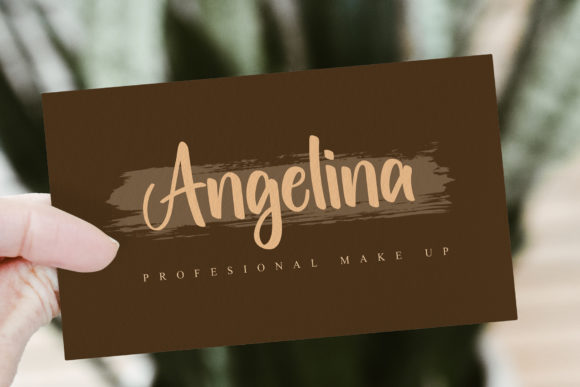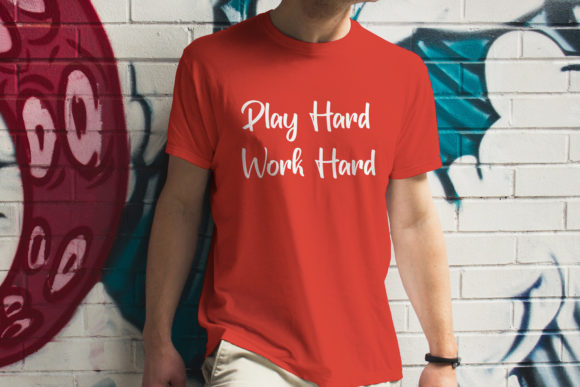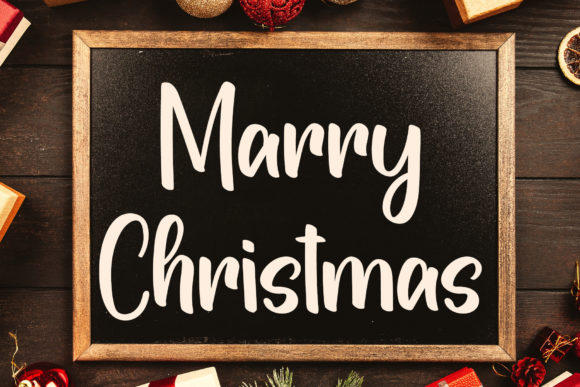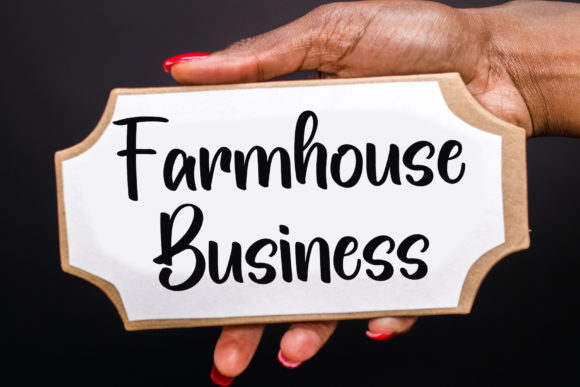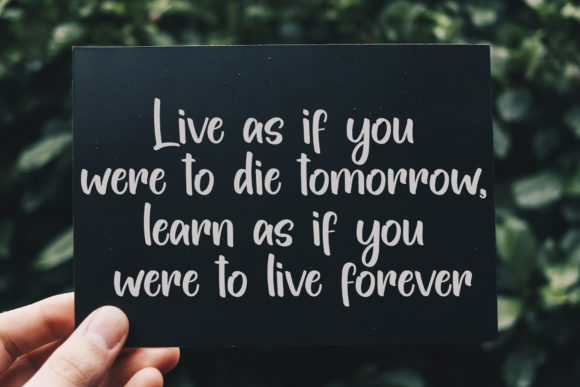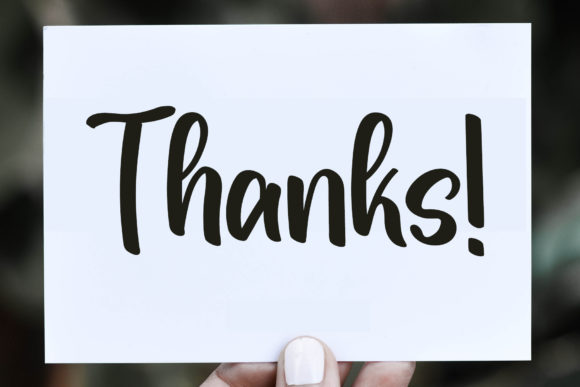
Introduction to Pastel Goth Font
Have you ever been working on a creative project and suddenly, the perfect font pops into your mind, elevating the entire design? That’s exactly what happened to me when I stumbled upon the enchanting Pastel Goth Font. Its delicate, whimsical touch instantly transported me to a world of dreamy elegance.
As a designer, you know the importance of having a reliable design resource that can bring your ideas to life. That’s where the Pastel Goth Font comes in – a high-quality, free download that’s perfect for any project, from delicate invitations to bold social media graphics. With its transparent background, you can easily overlay your design, adding a touch of subtlety and sophistication.
Key Features of Pastel Goth Font
- Unique, dreamy aesthetic with a mix of pastel colors and gothic elements, perfect for creative projects and design resources.
- High-quality font with detailed, intricate designs and transparent background, allowing for seamless integration with various design elements.
- Includes a range of glyphs and characters, including letters, numbers, and symbols, to cater to various design needs.
- Size: The font family includes multiple font weights, from light to bold, allowing for versatility in design applications.
- Perfect for designers and artists working on creative projects, such as digital art, graphic design, and typography, who seek a unique and high-quality design resource.
Honest Review: Pastel Goth Font
I recently stumbled upon the Pastel Goth Font and I must say it’s a hidden gem in the design world. This high quality font is perfect for any creative project that requires a touch of whimsy and elegance.
One of the standout features of this font is its unique aesthetic. The soft pastel colors and gothic-inspired design elements come together to create a truly one-of-a-kind look that’s sure to make your design stand out. Plus, it’s a free download, which is a major bonus for designers on a budget.
- Unique aesthetic that’s perfect for creative projects
- High quality design that’s sure to impress
- Transparent background for easy use with any design
One of the limitations of this font is its limited character set. While it’s perfect for headings and titles, it may not be the best choice for large blocks of text. Additionally, the font may not be suitable for designs that require a more traditional or formal look.
Overall, I’m really impressed with the Pastel Goth Font and would definitely recommend it to any designer looking for a unique and high-quality design resource.
Pastel Goth Font
The Pastel Goth Font is a versatile design resource that can be used in a variety of creative projects, including digital art, graphic design, and even web design. Its high-quality design makes it perfect for use in logos, branding materials, and other design elements.
Tips for Getting the Most Out of the Pastel Goth Font
To get the most out of the Pastel Goth Font, consider using it in conjunction with other design elements, such as graphics and images. You can also experiment with different font sizes, colors, and styles to create unique and eye-catching designs. Additionally, consider using the font in free download templates to create high-quality designs quickly and easily.